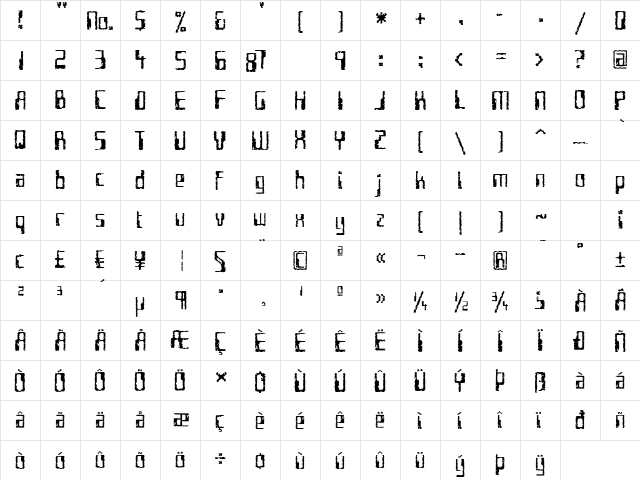
Future Imperfect Regular
Design Context for Future Imperfect Typeface
Future Imperfect channels digital-age aesthetics through its sharp, structured letterforms — ideal for brands that want to signal innovation.
Pro Tip: Use Future Imperfect in combination with a neutral sans for body text. Let it define the brand voice in headlines while keeping reading comfortable elsewhere.